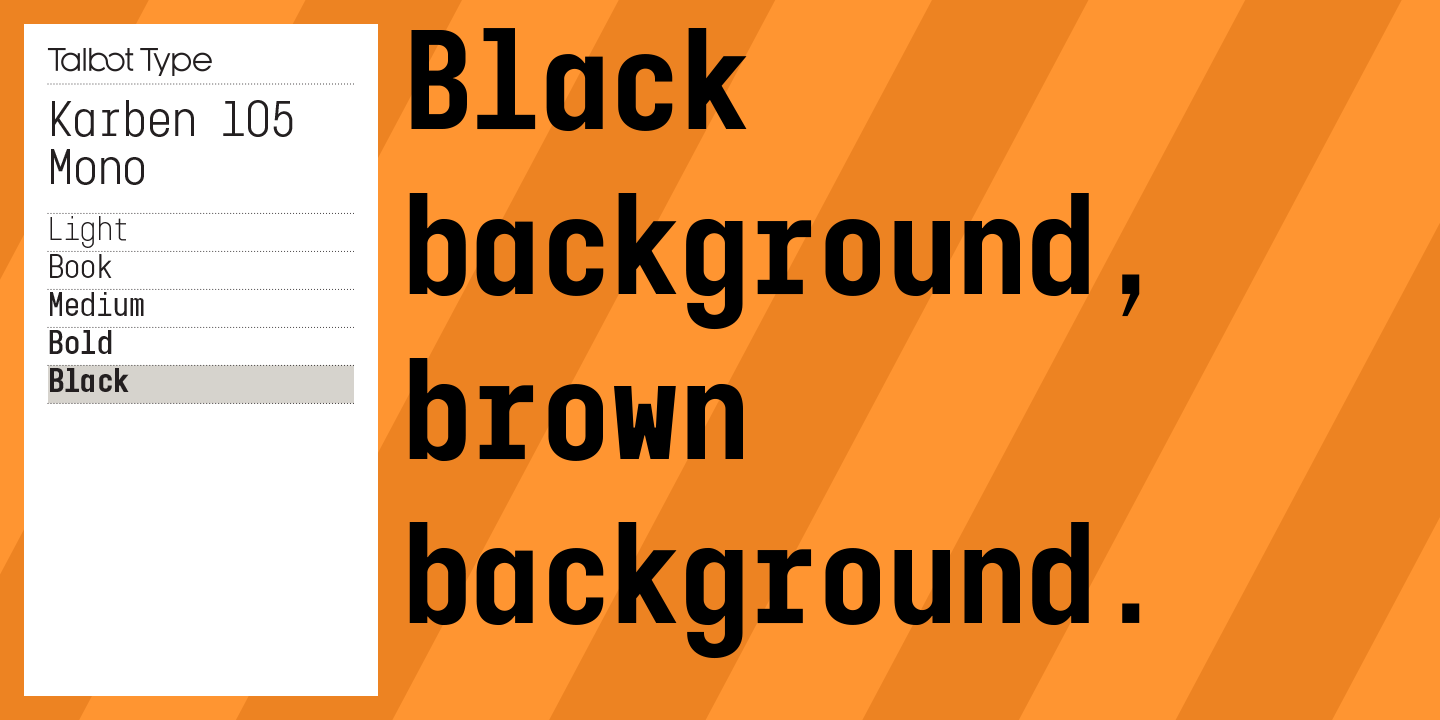
Karben 105 Mono Font is perfect for coding interfaces, technical documentation, programming tutorials, software development projects, terminal applications, digital displays, data visualization, and systematic technical communications.
What makes Karben 105 Mono Font exciting is its technical precision that combines monospaced functionality with contemporary design aesthetics for optimal code readability and professional appearance. This advanced typeface features uniform character spacing, technical clarity, and programming-optimized personality that ensures perfect alignment and enhanced readability in coding environments, making it ideal for developers and technical professionals seeking both functionality and visual sophistication.
The Karben 105 Mono Font family includes Light, Regular, Medium, and Bold weights, each maintaining the characteristic monospaced precision and technical excellence that define this distinctive typeface's programming personality and professional appeal.
Karben 105 Mono Font Free Download provides access to a premium monospaced typeface engineered specifically for modern development environments. This technical font combines programming functionality with design refinement, making it essential for software developers, technical writers, and programming educators targeting audiences who demand both code clarity and aesthetic quality. The font's monospaced construction and technical optimization ensure superior performance in coding applications while its contemporary character enhances the visual appeal of technical interfaces. Whether designing code editors, technical documentation, or programming learning platforms, this font delivers the technical precision and professional polish that serious developers expect. Its programming foundation and technical excellence make it indispensable for projects celebrating software development culture, coding education, and the intersection of technical functionality with contemporary design standards, ensuring communications maintain code readability while projecting professional competence in technical environments.